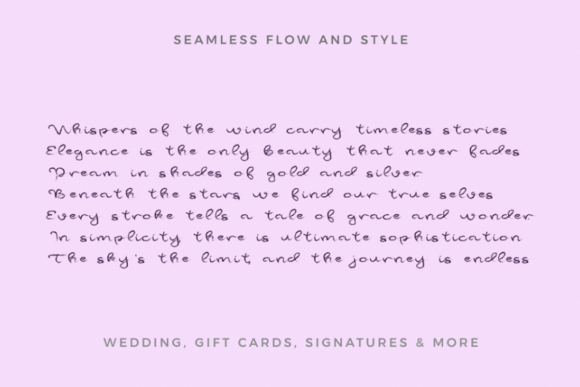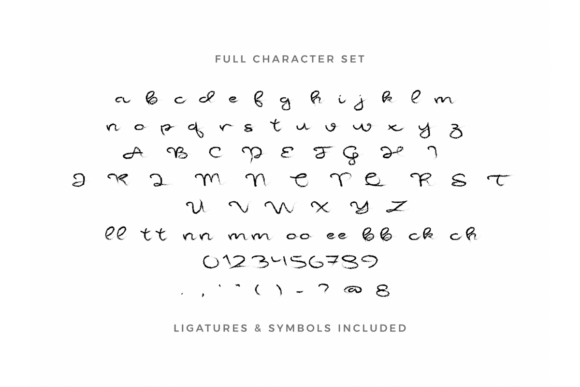
Introducing Coarse: The Unmistakably Audacious Font
In the world of typography, fonts play a crucial role in conveying the tone and personality of a design. For designers and crafters looking to add a touch of uniqueness to their creative projects, Coarse is an exceptional choice. This hand-lettered script font is a masterpiece that effortlessly combines the beauty of handwriting with a rough-textured aesthetic, making it a standout in the realm of typography.
The Art of Calligraphy in Coarse
Coarse is more than just a font; it’s a testament to the art of calligraphy. Its design resonates with the unrefined beauty found in traditional calligraphy, yet it boasts a modern twist that sets it apart from more conventional fonts. The hand-lettered style of Coarse gives it a personal and organic feel, reminiscent of handwritten scripts but with a boldness that’s hard to ignore.
Unique Handwriting Stylings
One of the most striking features of Coarse is its unique handwriting stylings. Unlike generic fonts that lack character, Coarse offers an unmistakably audacious look that can elevate any design. Its letters are crafted with precision and a keen eye for detail, ensuring that each character contributes to the overall aesthetic pleasure of the text. This makes Coarse an excellent choice for designers looking to infuse their projects with personality and flair.
Rough-Textured Aesthetic Pleasure
The rough-textured aesthetic of Coarse is another attribute that sets it apart. This feature gives the font a tactile quality, as if the words on the page have been penned with a marker or a brush. The texture adds depth and emotion to the text, making it more engaging and visually appealing. For crafters and designers who appreciate the value of texture in their work, Coarse offers a refreshing alternative to smooth, digital fonts.
Emboldened by Strong Attributes
Coarse is emboldened by its strong attributes, which include its distinctive look and the ability to command attention. Its boldness is not just in its appearance but also in its versatility. Whether you’re working on a branding project, a website design, or a craft project, Coarse can adapt to various contexts, adding an authentic touch that resonates with audiences.
Adding an Authentic Touch to Creative Projects
For designers and crafters seeking to add an authentic touch to their projects, Coarse is an invaluable resource. Its unique blend of handwriting stylings and rough-textured aesthetics brings a level of authenticity that’s hard to achieve with more conventional fonts. By incorporating Coarse into your designs, you can create pieces that stand out for their originality and emotional resonance.
Versatility of Coarse
The versatility of Coarse is one of its most compelling attributes. This font can be used across a range of mediums, from digital platforms to print materials. Its legibility and aesthetic appeal make it suitable for headings, titles, and short paragraphs, allowing designers to experiment with different layouts and compositions.
Why Choose Coarse?
Choosing Coarse for your design projects comes with several benefits. Firstly, it offers a unique look that can help your work stand out in a crowded field. Secondly, its hand-lettered style and rough-textured aesthetic provide a depth and character that generic fonts lack. Finally, Coarse’s versatility and legibility make it a practical choice for a wide range of applications.
Coarse is an exceptional font that brings a fresh perspective to the world of typography. Its unmistakably audacious design, unique handwriting stylings, and rough-textured aesthetic pleasure make it a valuable asset for designers and crafters. By choosing Coarse, you’re not just selecting a font; you’re embracing a design philosophy that values authenticity, originality, and emotional resonance. Whether you’re working on a new project or looking to refresh your brand’s visual identity, Coarse promises to add a touch of audacity and elegance to your creations.